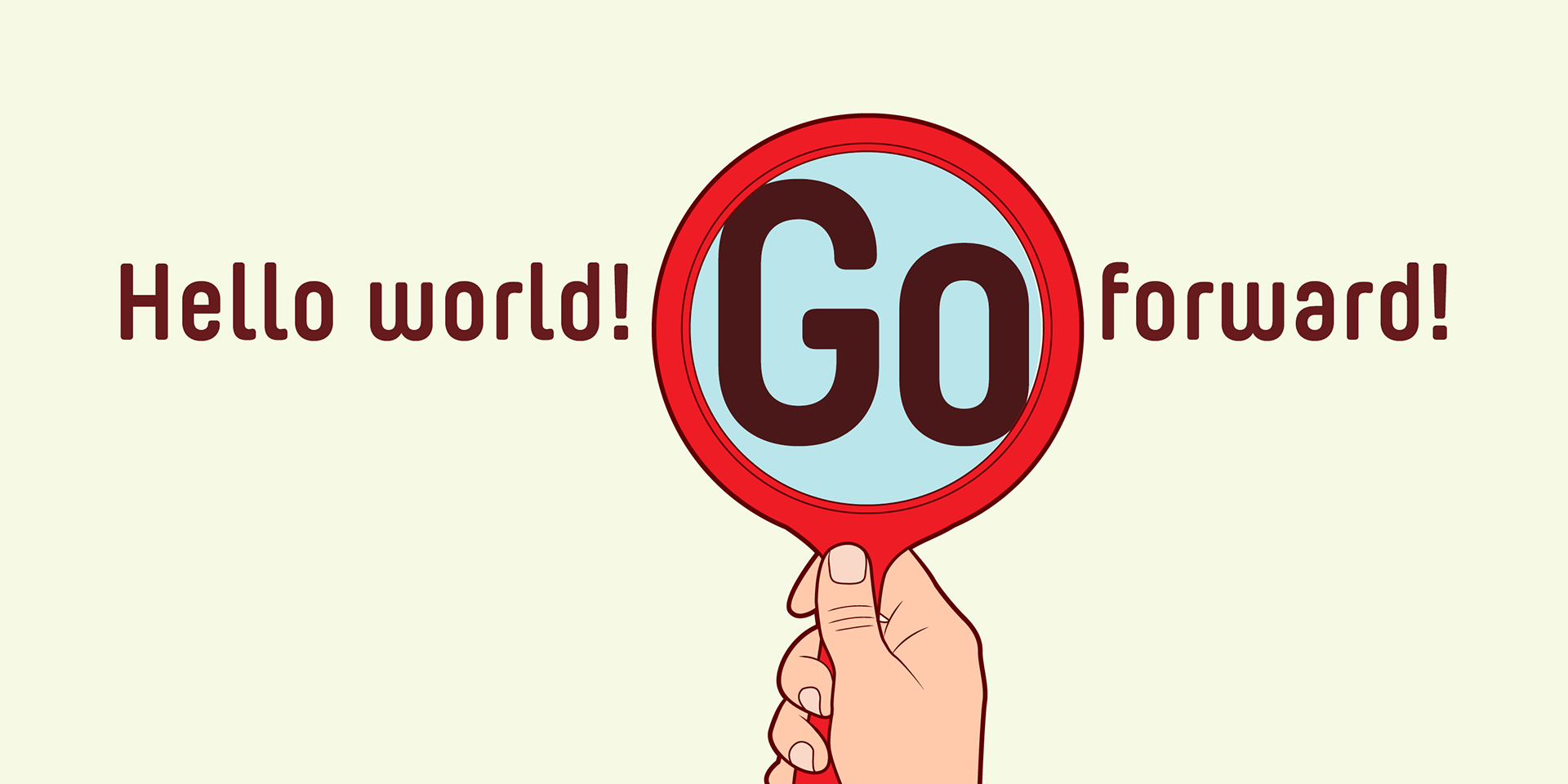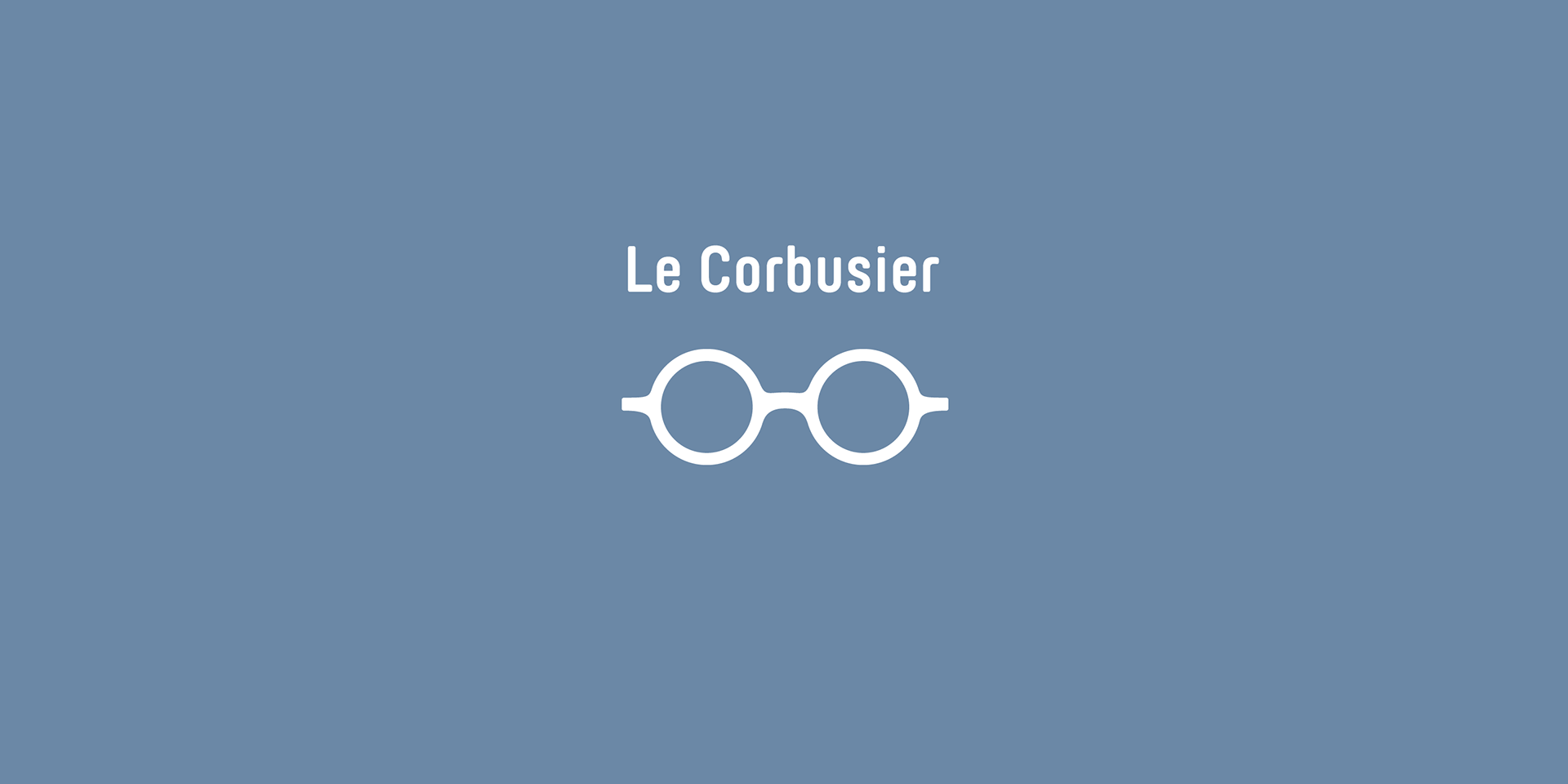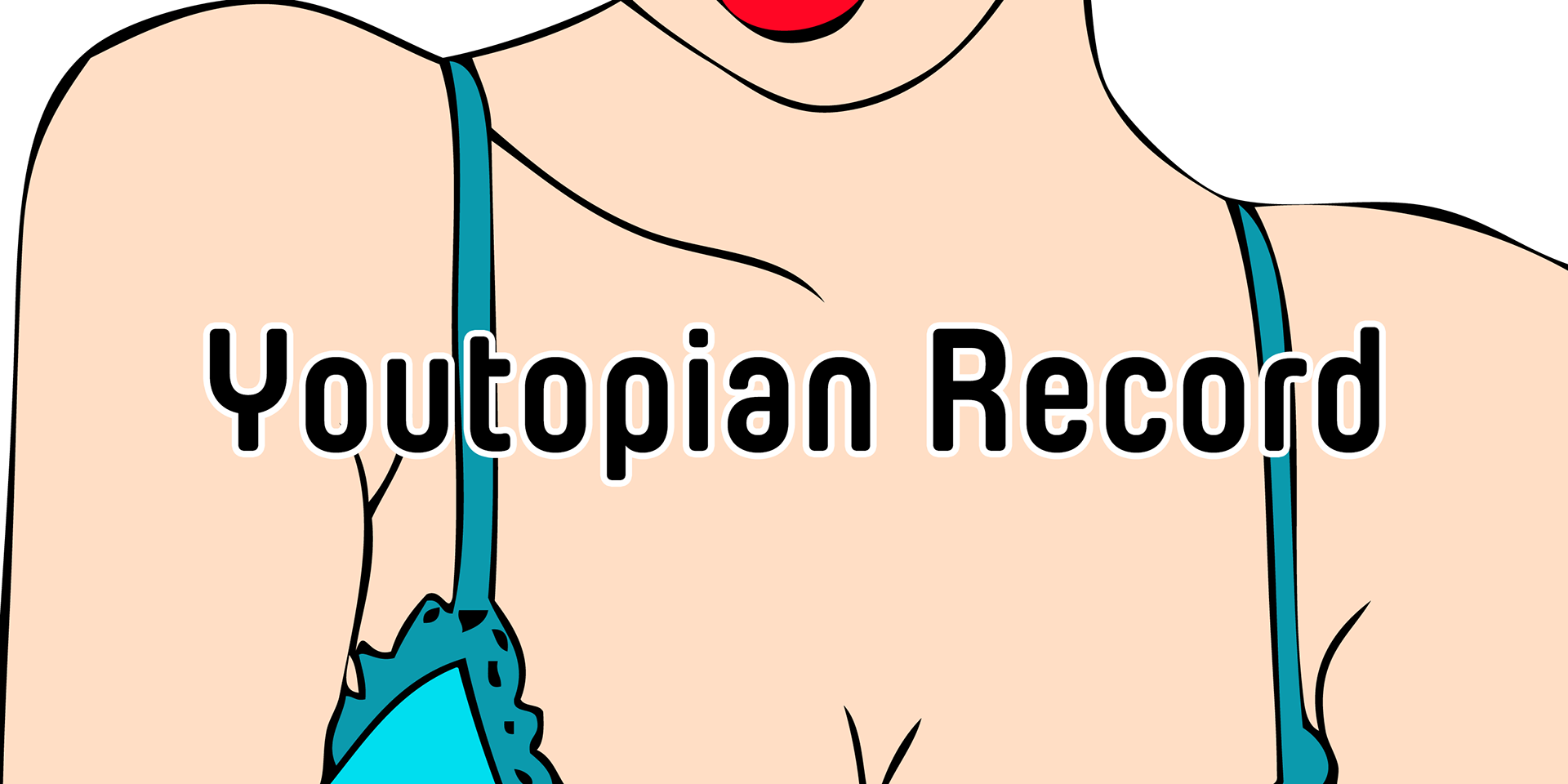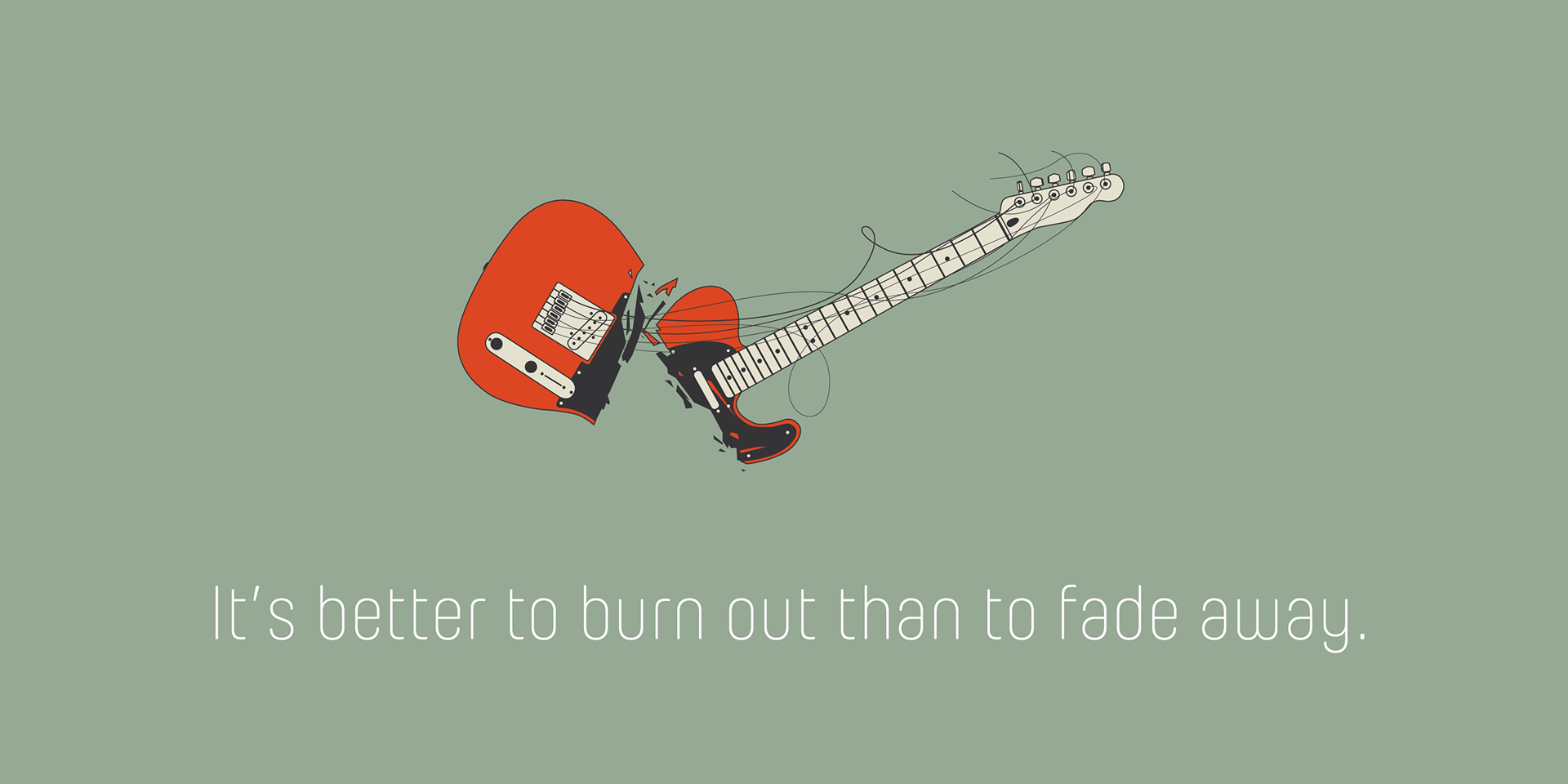
Yummo
Yummo is a geometric yet slightly condensed sans-serif type family designed for versatility across a wide range of applications.
Its precisely shaped, minimal glyphs deliver a modern and contemporary impression, while the rounded contours add a touch of softness and charm.
More than just a geometric rounded font, Yummo conveys a sense of human warmth and personality, as if the forms were subtly handwritten.
To support diverse design needs, the family includes 5 weights, each with support for diacritics covering most European languages.